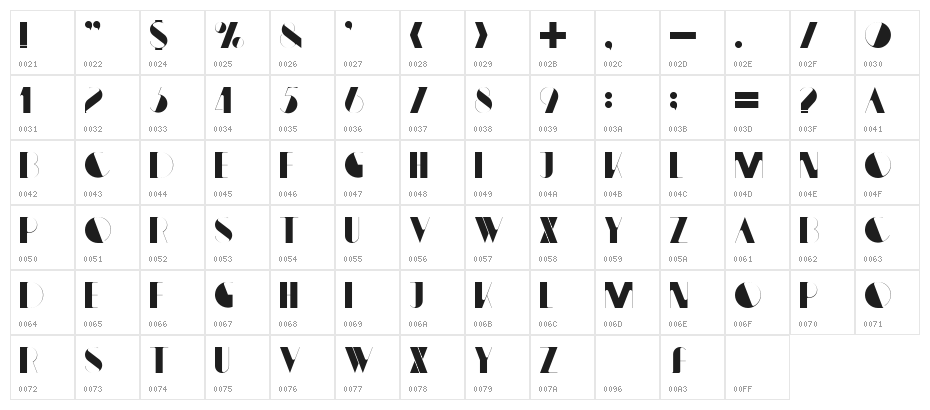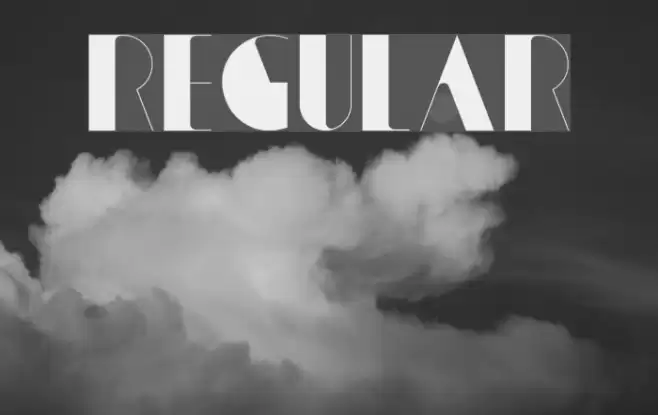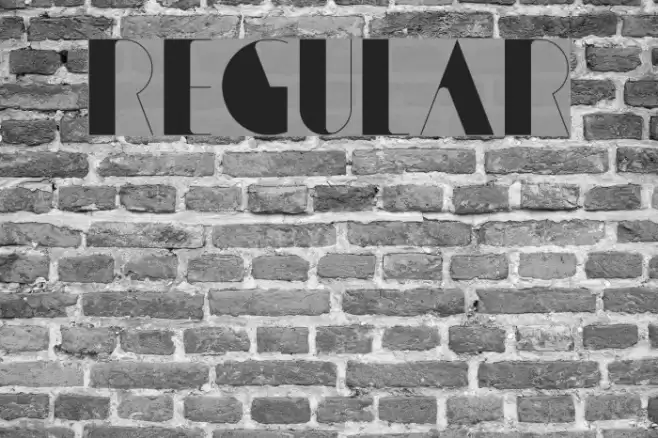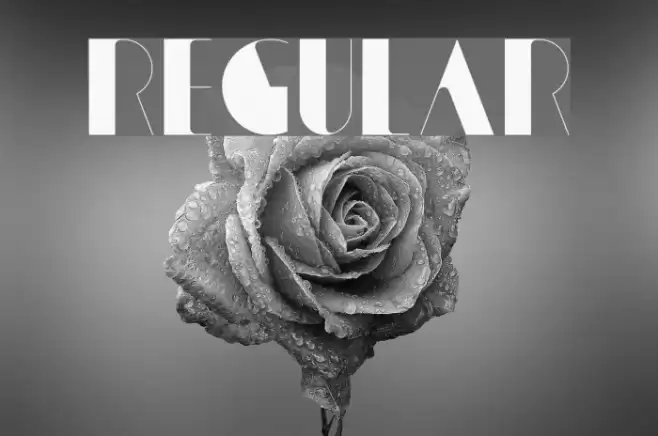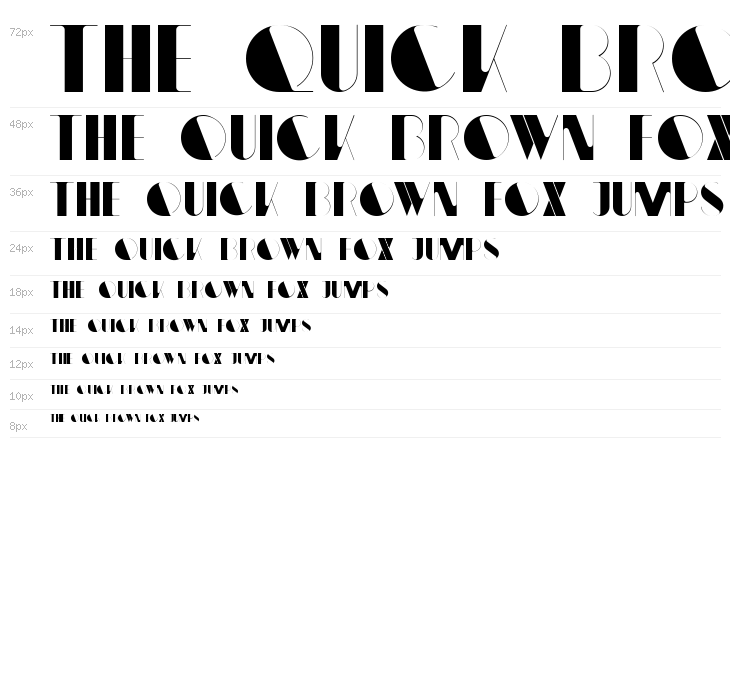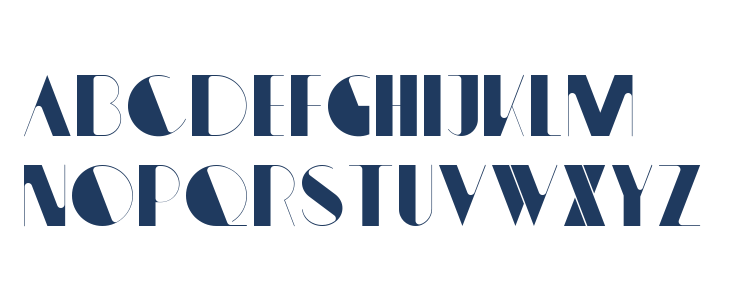
Regular Font
Regular Description
This font features a bold and striking design with a modern, geometric aesthetic. The characters are constructed with a mix of thick and thin strokes, creating a high contrast that draws attention. The uppercase letters have a unique, angular style, while the lowercase letters maintain a consistent geometric form. The numbers and special characters follow the same design principles, ensuring a cohesive look across all elements. This font's distinct appearance makes it ideal for projects that require a strong visual impact.